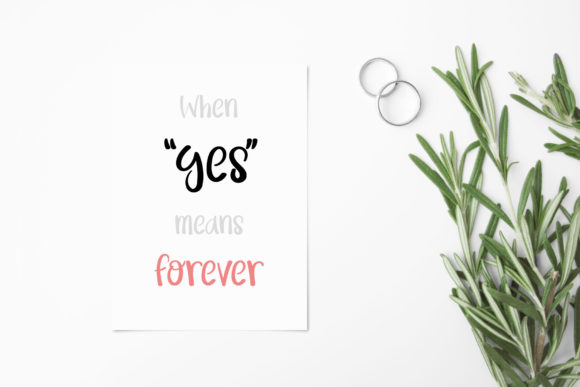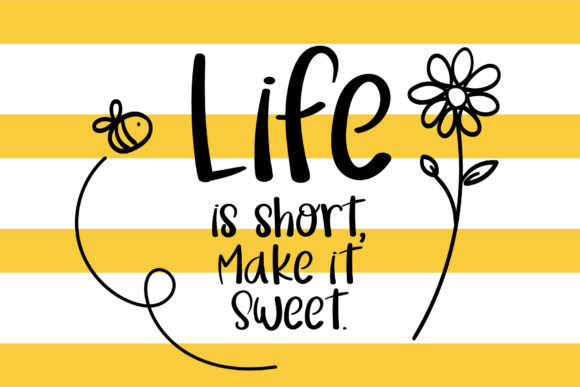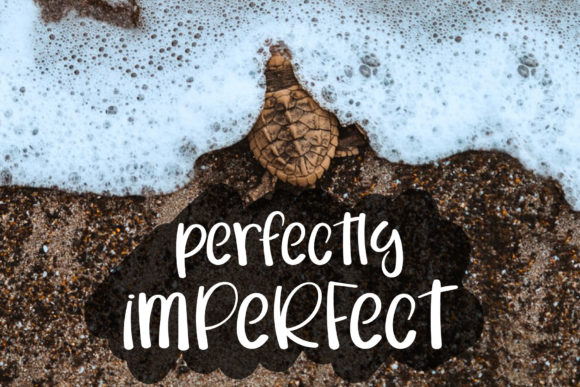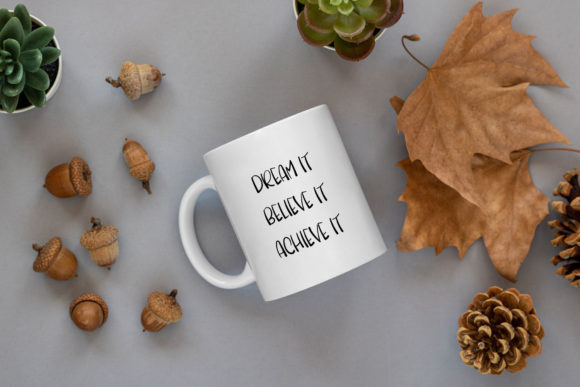
Creating Something Beautiful
There’s a moment in every creative journey when everything falls into place. Your ideas start flowing, and the excitement of bringing them to life takes over. You’re lost in a world of color, texture, and typography. This is where the magic happens, and the right font can make all the difference.
Meet the Be with You Font, a charming handwritten font designed to add warmth and personality to your projects. Its versatility and flexibility make it perfect for a wide range of applications, from romantic wedding invitations to playful social media posts. Whether you’re a seasoned designer or just starting out, the Be with You Font is a valuable tool to have in your creative arsenal.
With the Be with You Font, the possibilities are endless, and the fun is just beginning. So, let’s dive in and explore the endless variations this beautiful font has to offer.
Be with You Font Key Features
- Unique Characteristics: Hand-drawn, brush script design with a personal touch, ideal for creative and emotional content
Be with You Font Review
I recently had the chance to work with the Be with You Font, and I have to say it’s a mixed bag. ✨ One thing that really stands out is its unique, hand-drawn feel. It’s perfect for adding a touch of personality to your designs without looking too over-the-top.
Another strength of the font is its versatility. It comes in a wide range of weights and styles, making it easy to use in a variety of contexts. Whether you’re creating a bold headline or a subtle body text, Be with You Font has got you covered.
- Unique, hand-drawn feel that adds personality to designs
- Wide range of weights and styles for versatility
- Works well for both headlines and body text
- May not be suitable for formal or professional contexts due to its informal feel
- Some of the weights and styles may be a bit too ornate for certain designs
- Not as legible at very small font sizes
Overall, I’d say Be with You Font is a solid choice for designers looking to add some personality to their work. Just be aware of its limitations and use it judiciously.
“Be with You Font” is ideal for:
Love quotes and phrases
Valentine’s Day and anniversary designs
Any design that requires a romantic and elegant font style.
Alternatives to “Be with You Font” for Designers
The Be with You Font is a modern, elegant script font. However, designers may be looking for alternatives to add some variety to their designs.